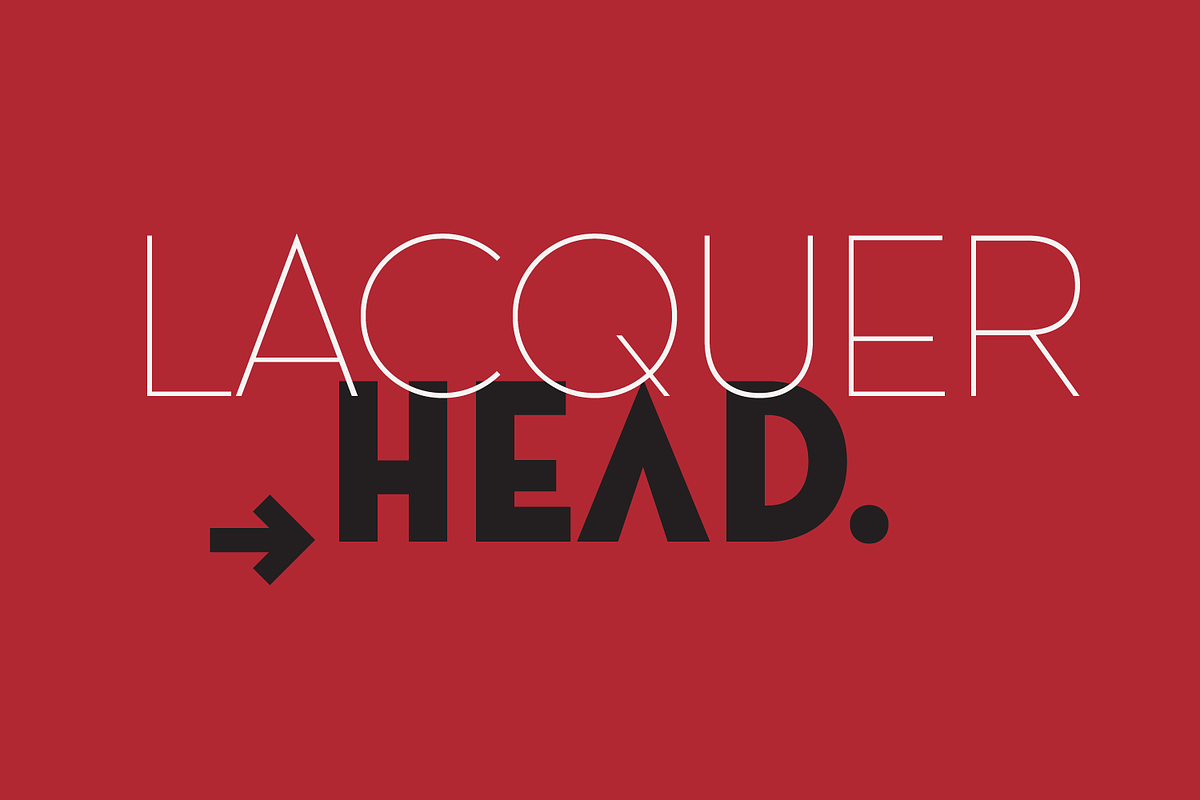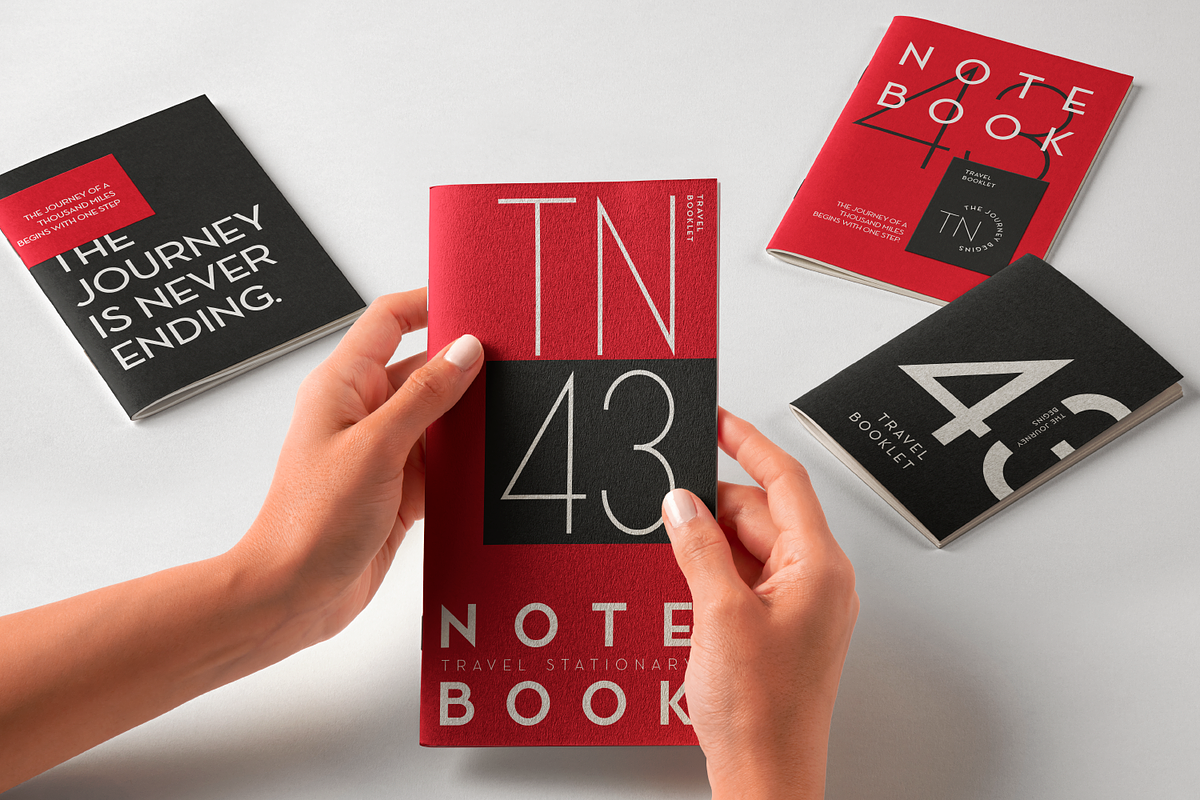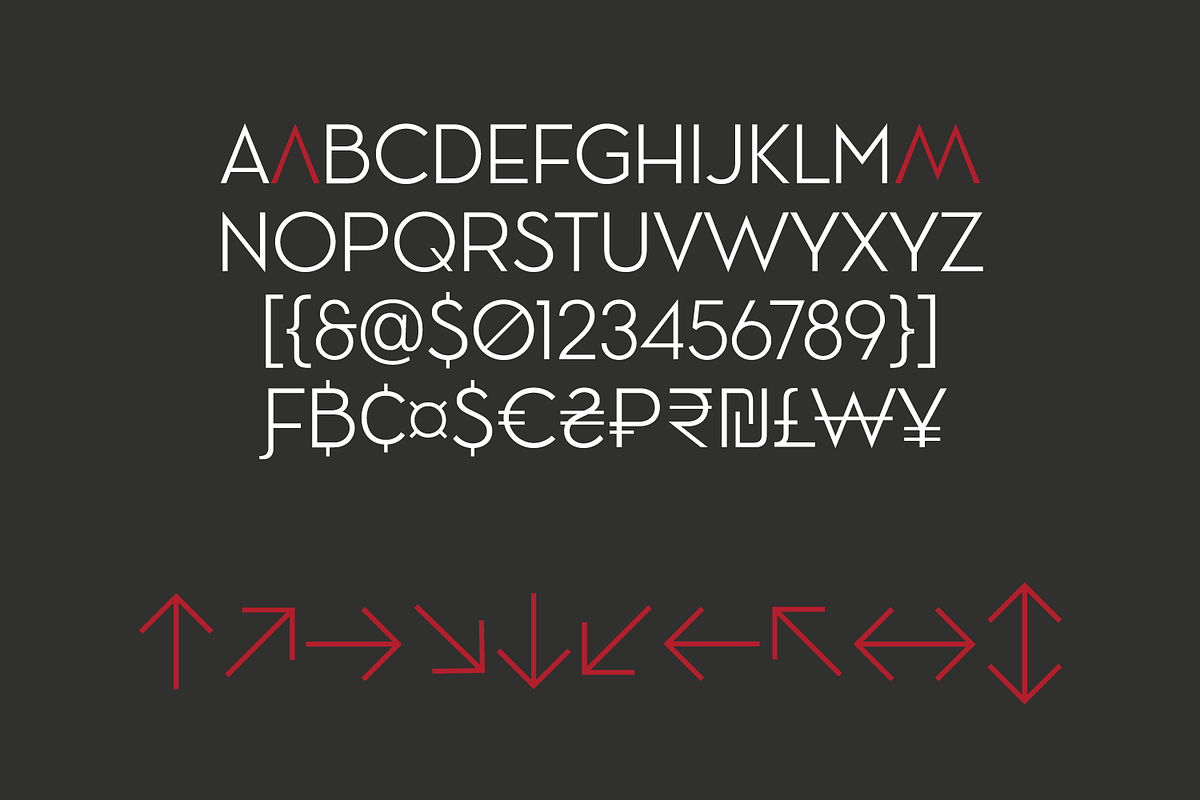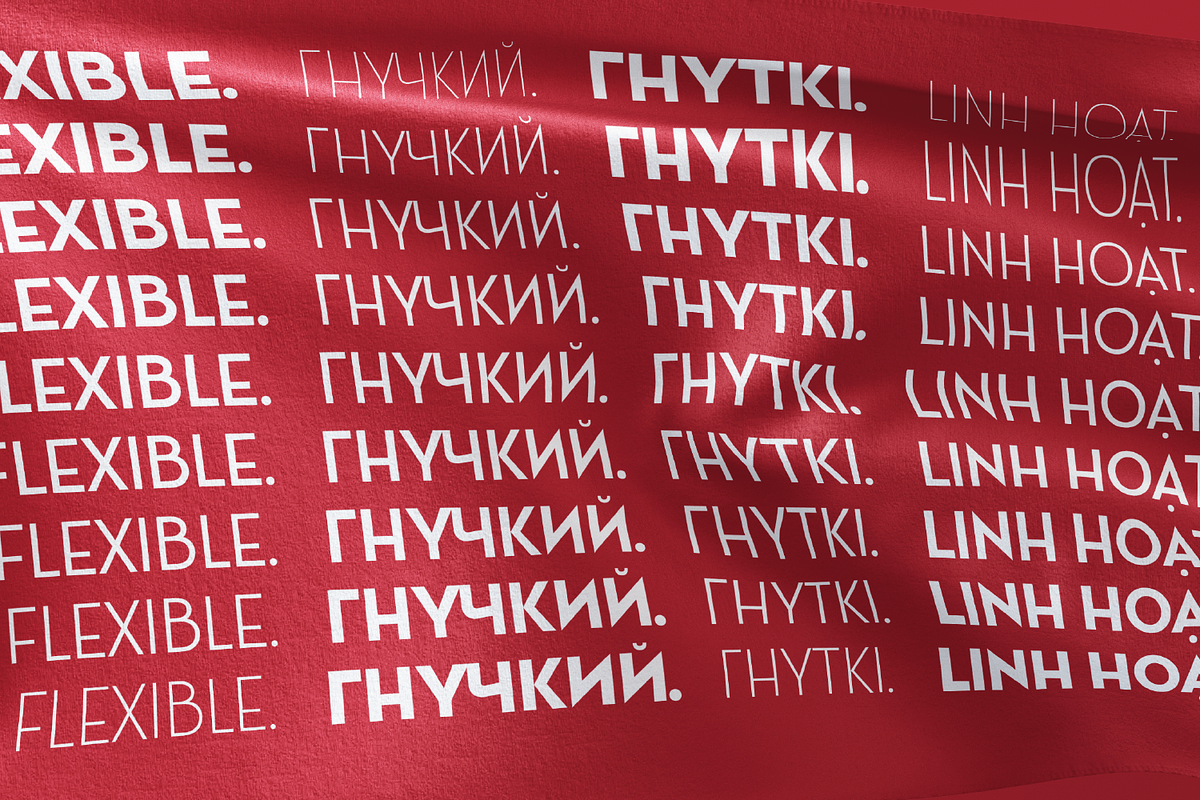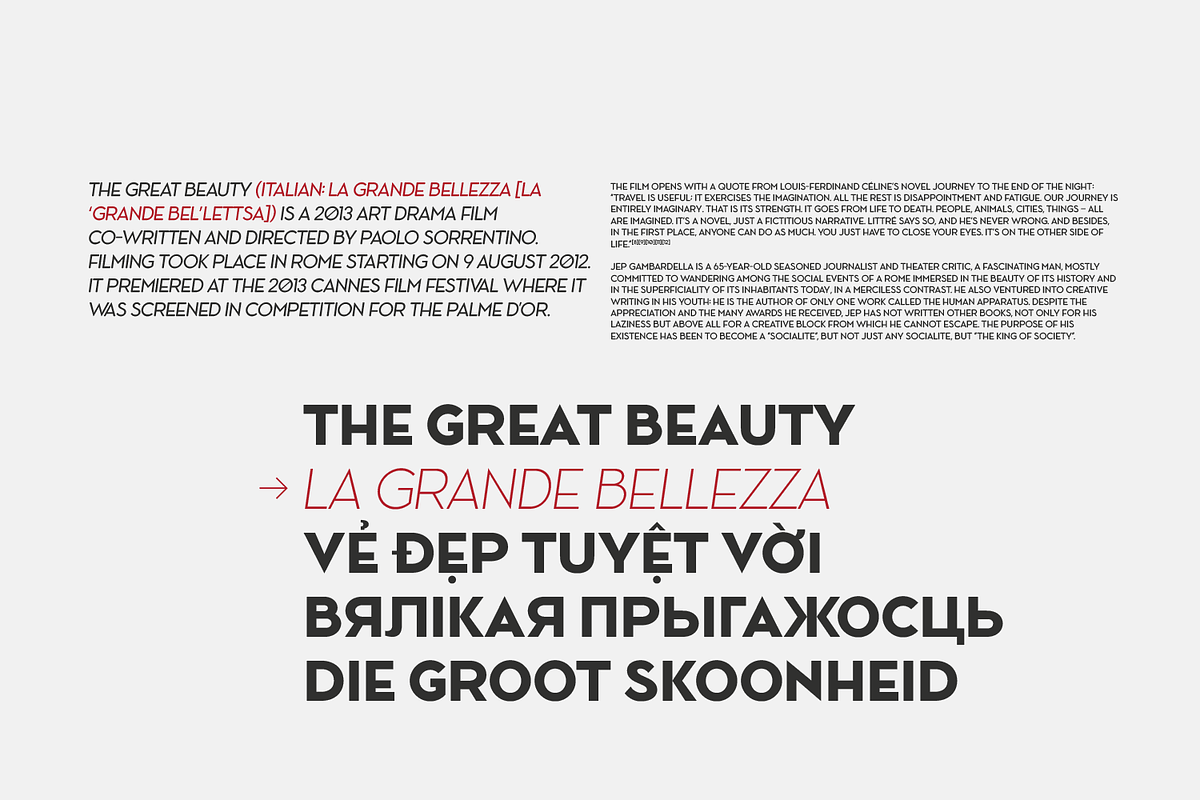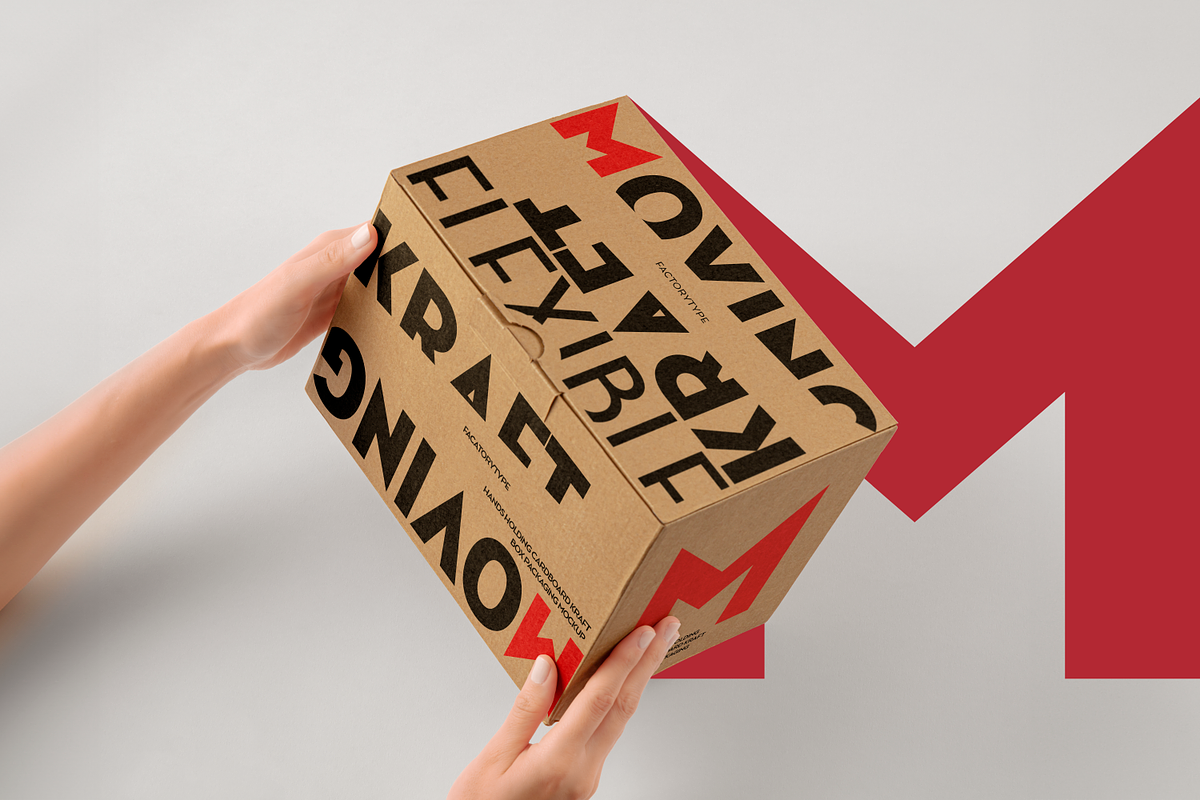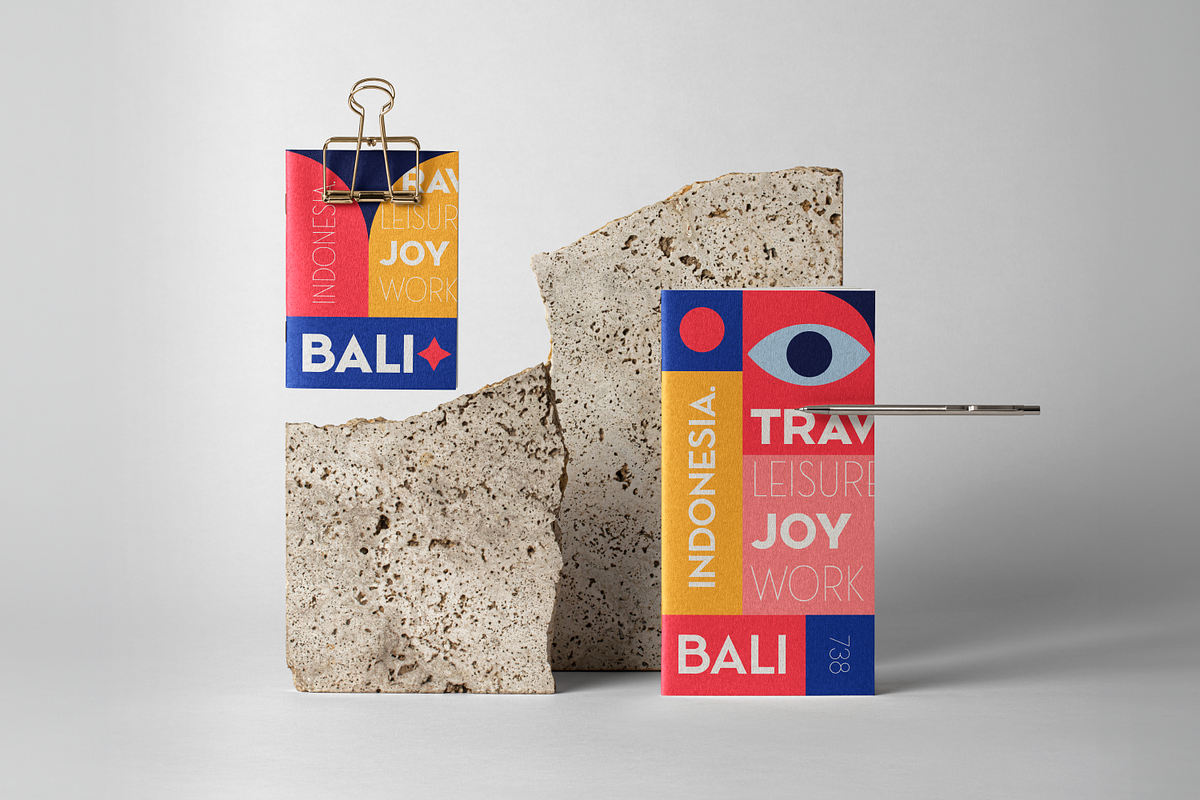
Ace Sans Roman Font
Ace Sans is a modern and minimalist sans serif font family. The combination of minimal and geometric elements renders a modern design. Ace Sans is clean and modern caps, thereby creating more variability. This is irreproachable sans serif to diversify your headlines, branding visual identity, poster, logo, magazines and etc.
Ace Sans Roman Font by Factory738 Studio fits naturally into Branding, posters, packaging, typography.